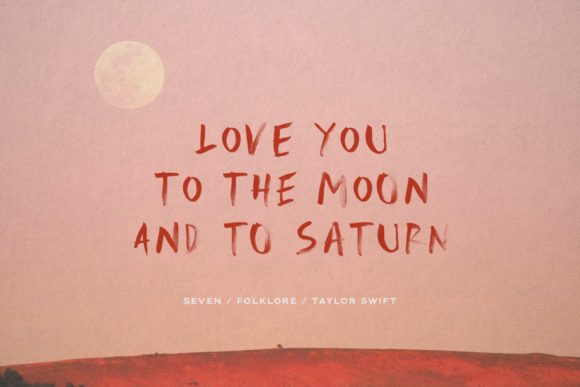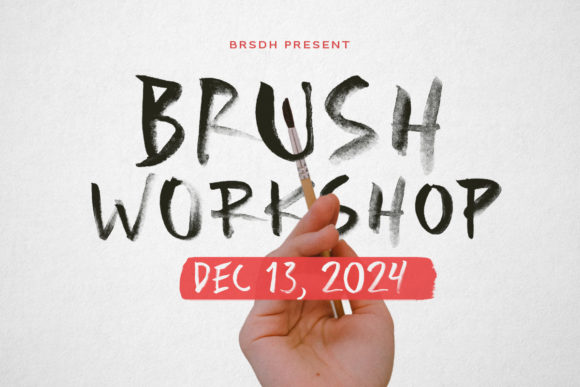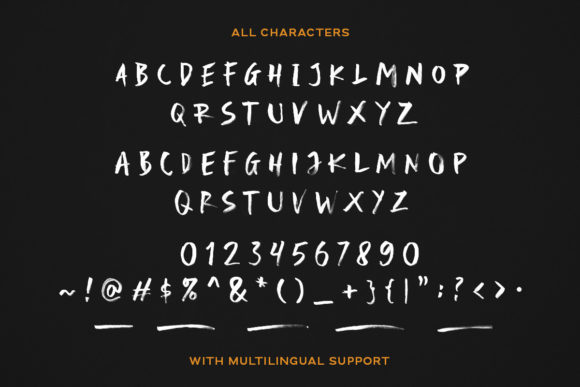
Stay Tuned is a cool, casual and street styled display font. Add this rough textured font to your favorite urban creations and notice how easily they fit in!
Stay Tuned Font